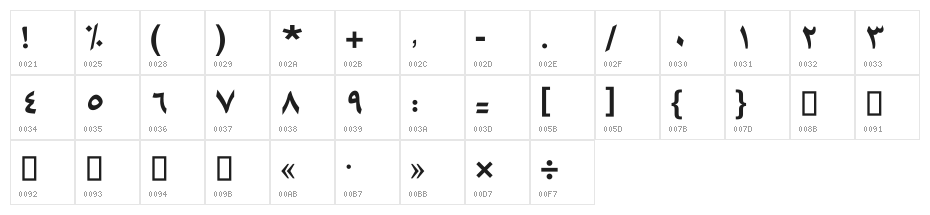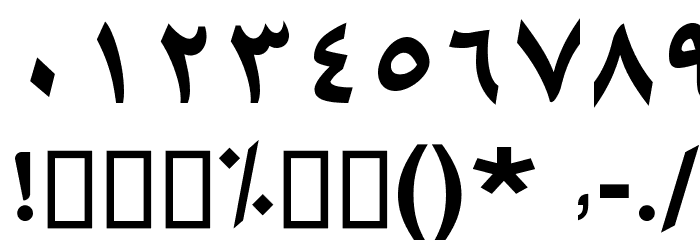
Soltaan I Font
Soltaan I Description
This font features a bold and dynamic style with a strong presence. The characters are designed with a unique flair, incorporating sharp angles and curves that give it a distinct personality. The numerals and special characters maintain the same boldness, ensuring consistency across all elements. The font is well-suited for projects that require a striking and memorable visual impact, making it ideal for headlines, posters, and branding materials. Its bold strokes and unique character shapes make it stand out, while still maintaining readability.
| Proposed Projects | Ideal for headlines, posters, branding, and any project needing a bold visual impact. |